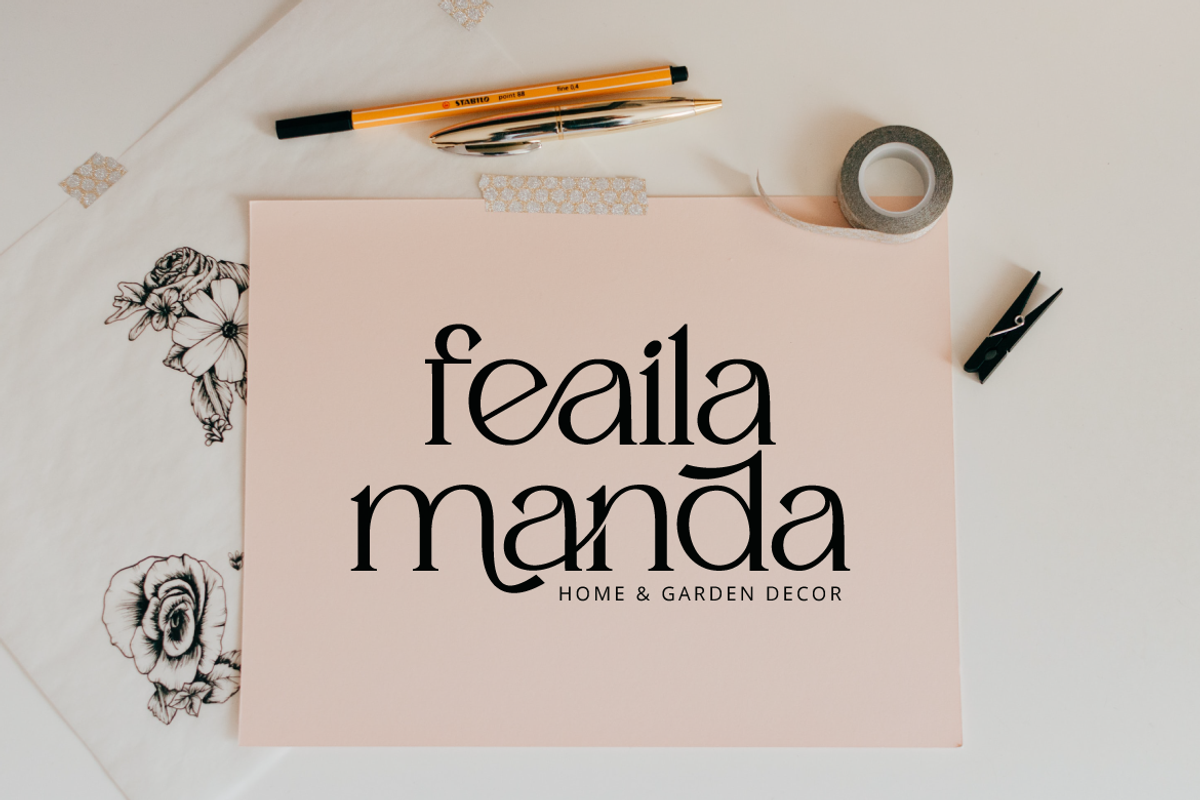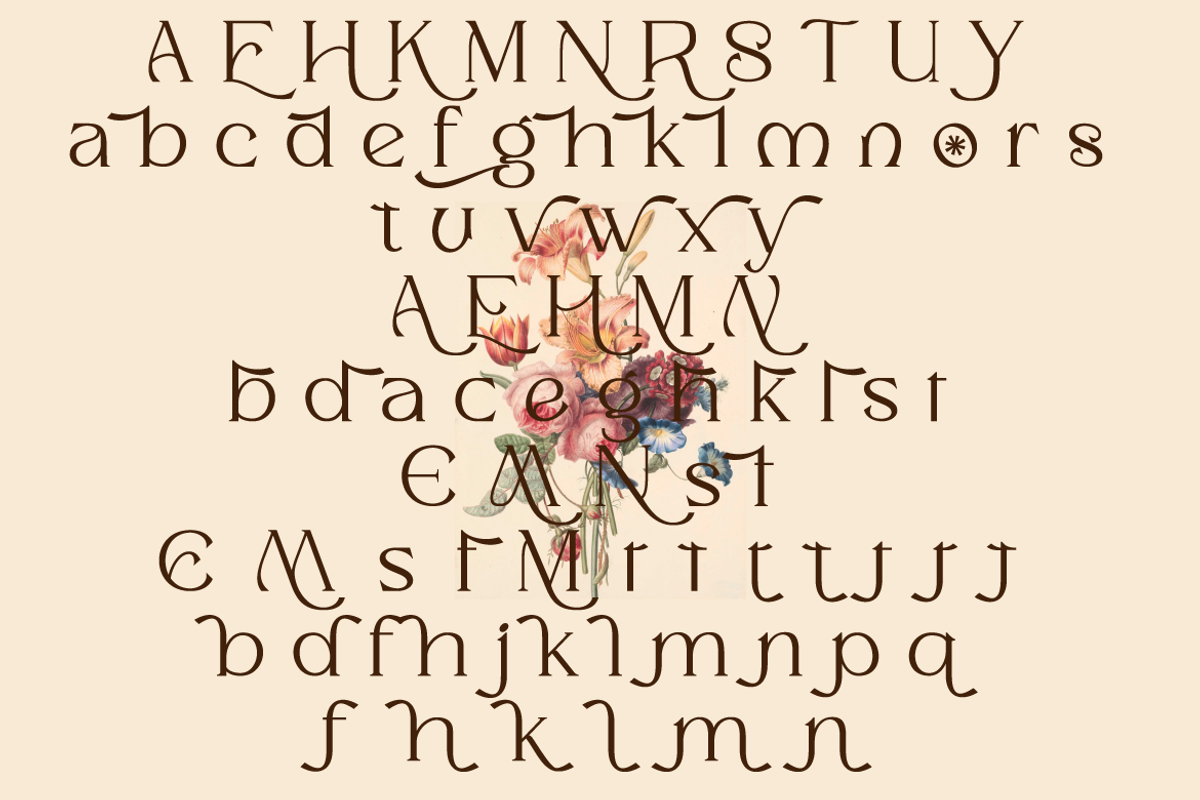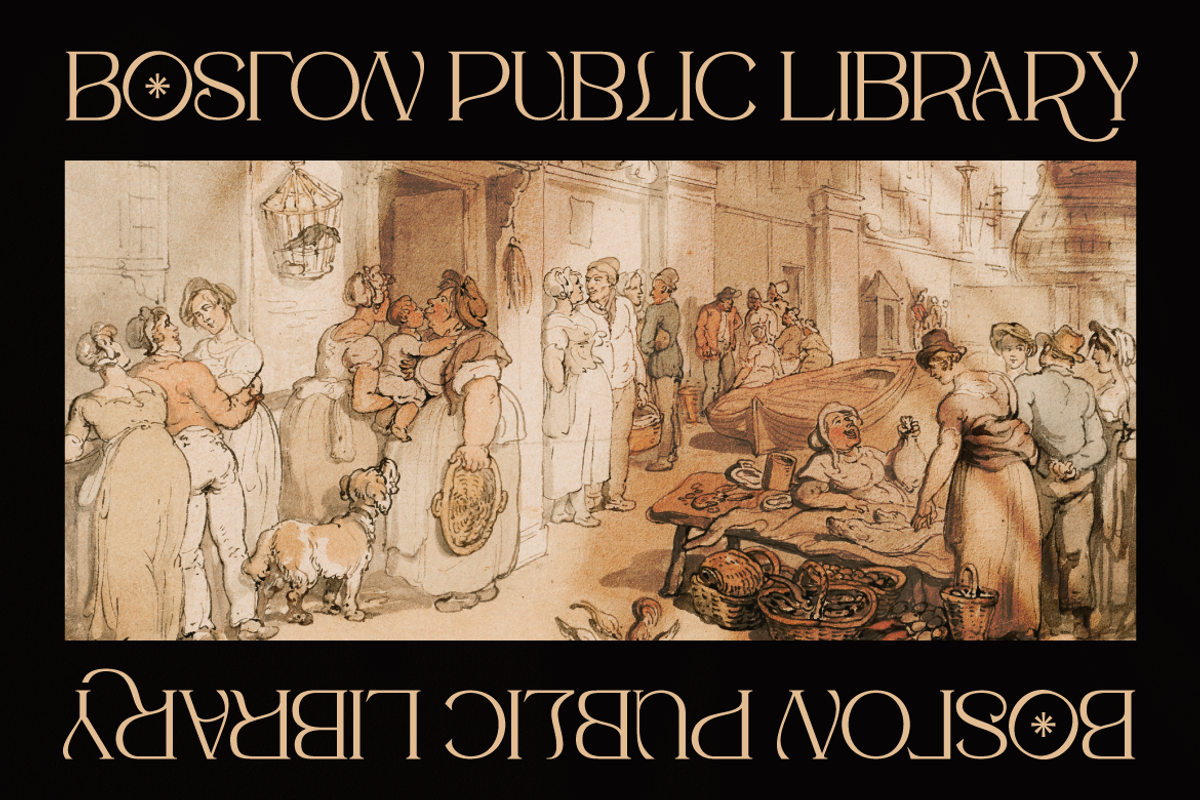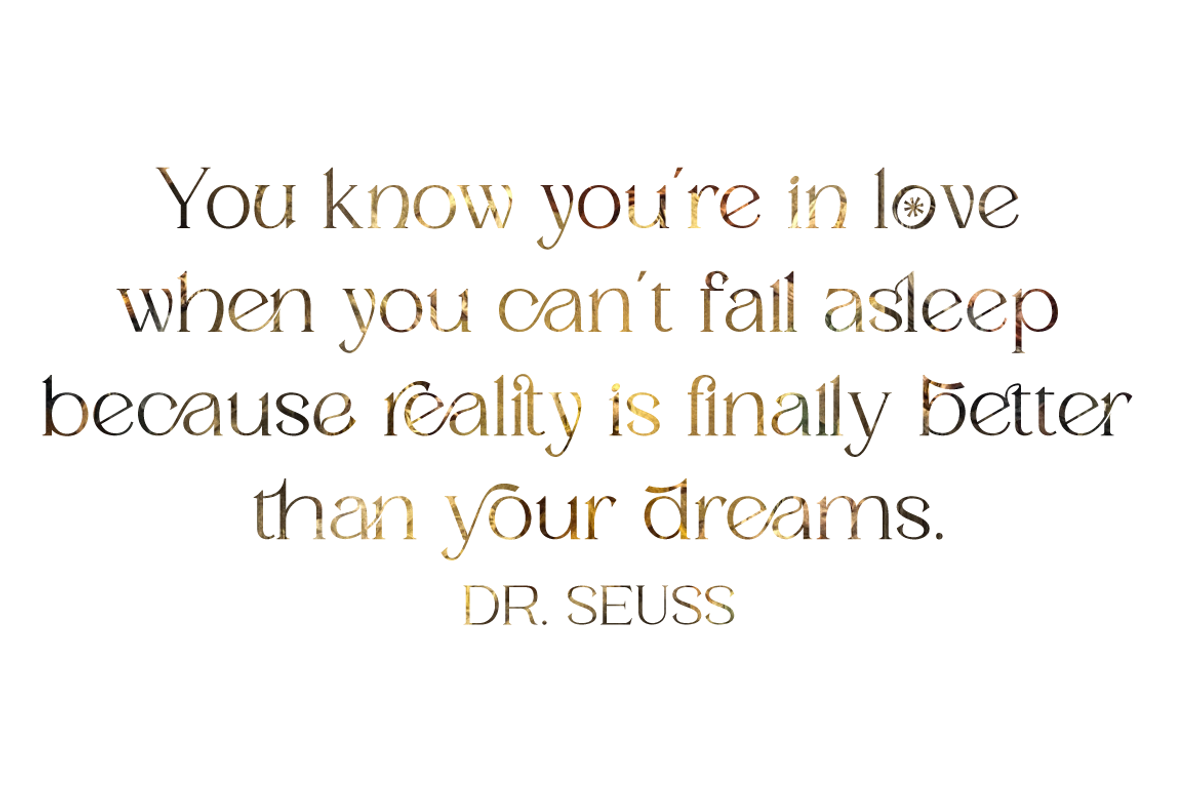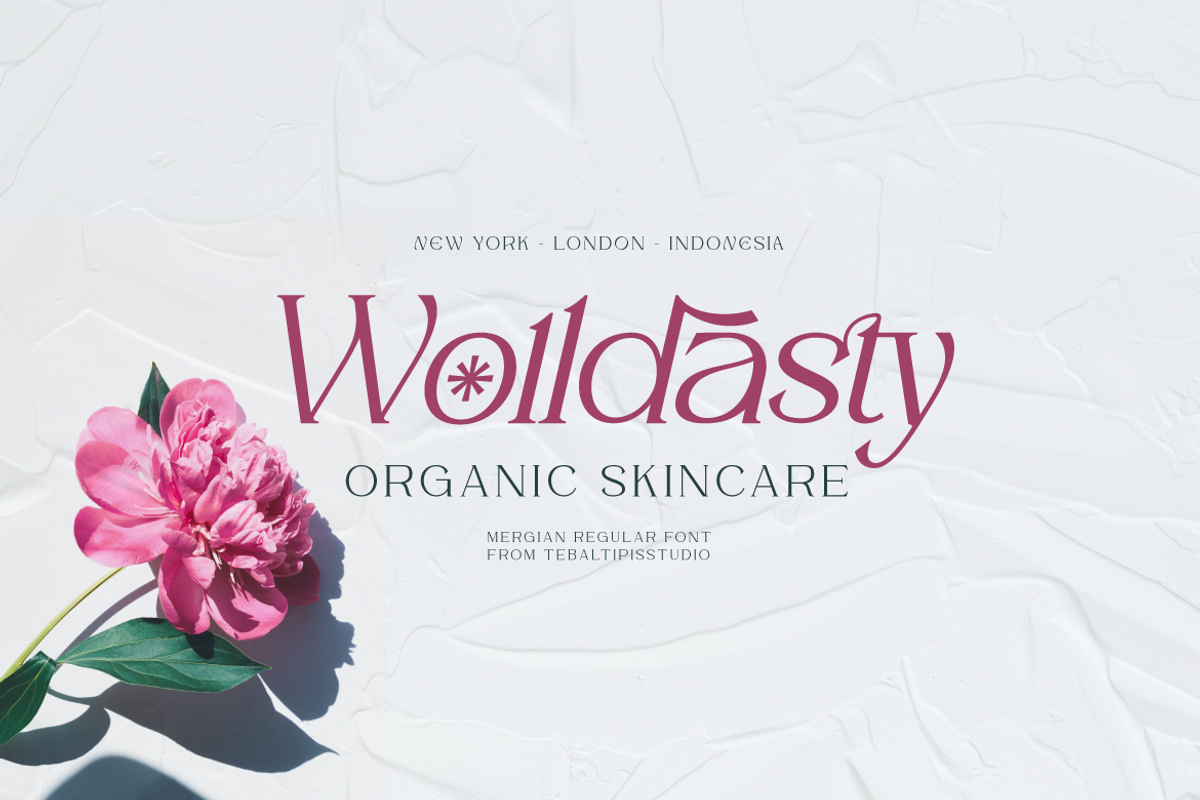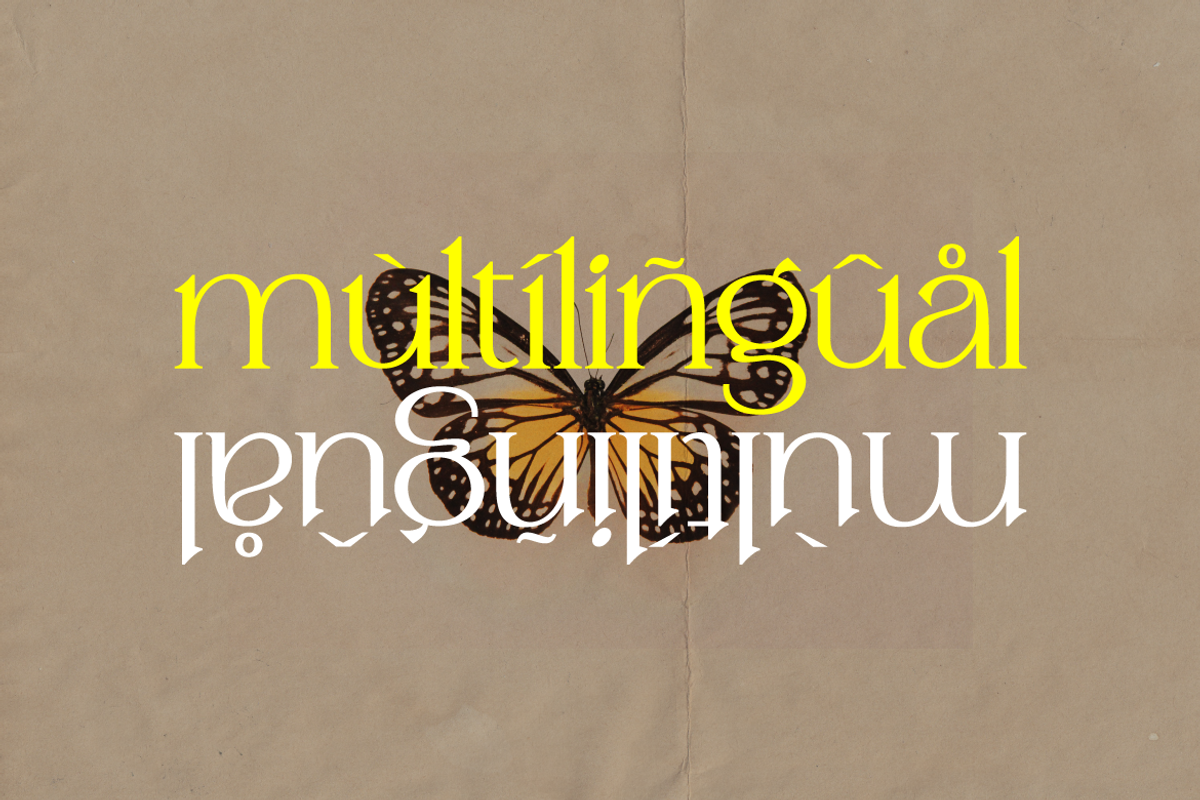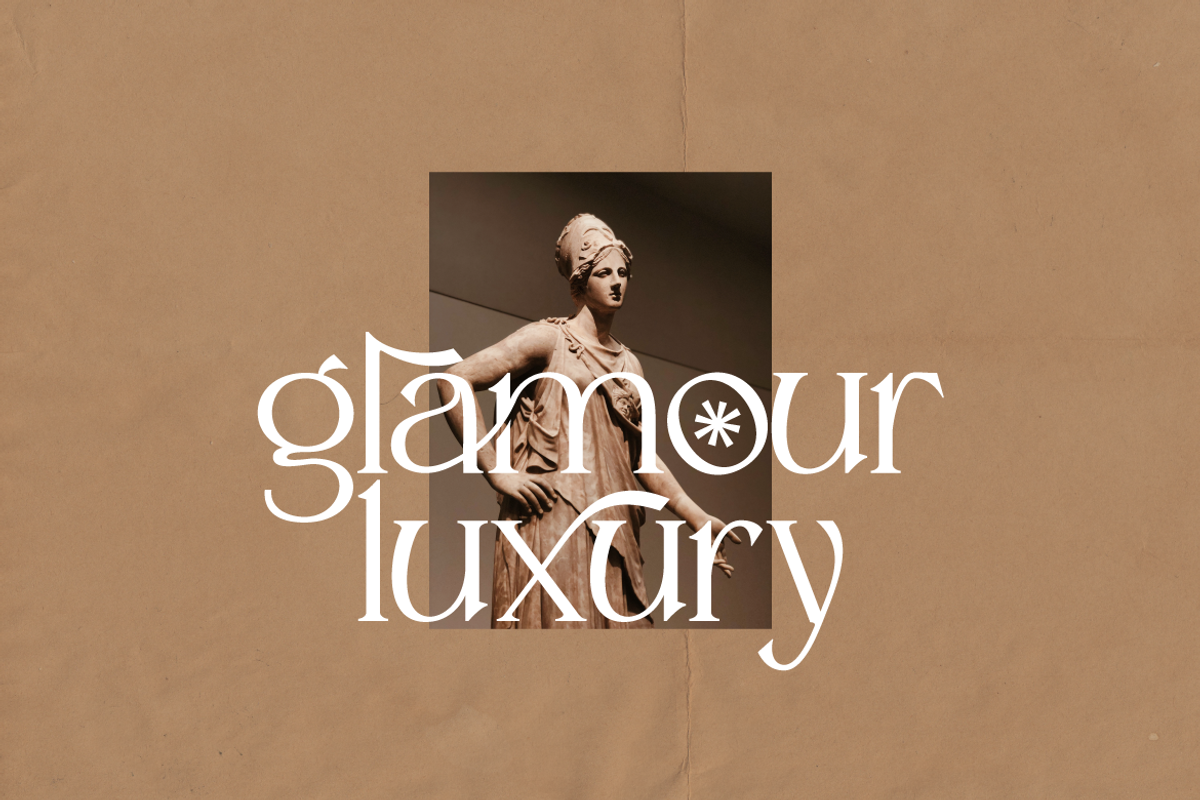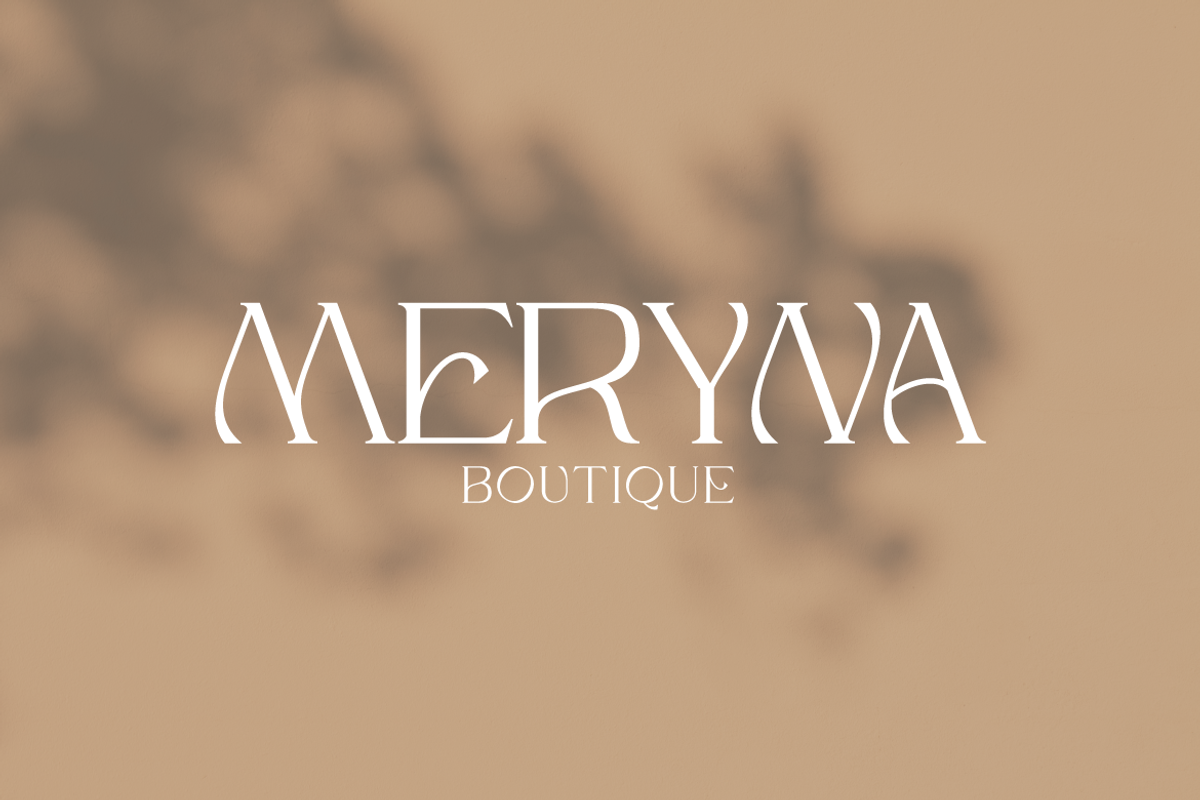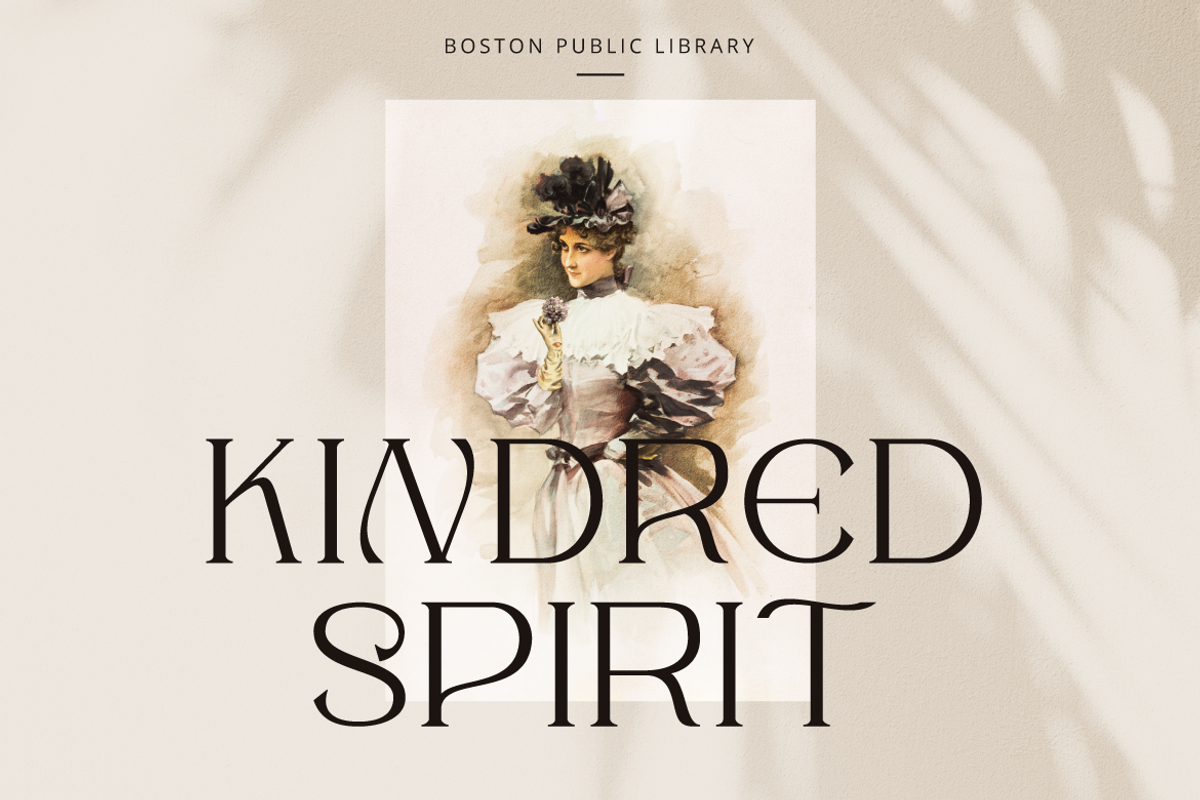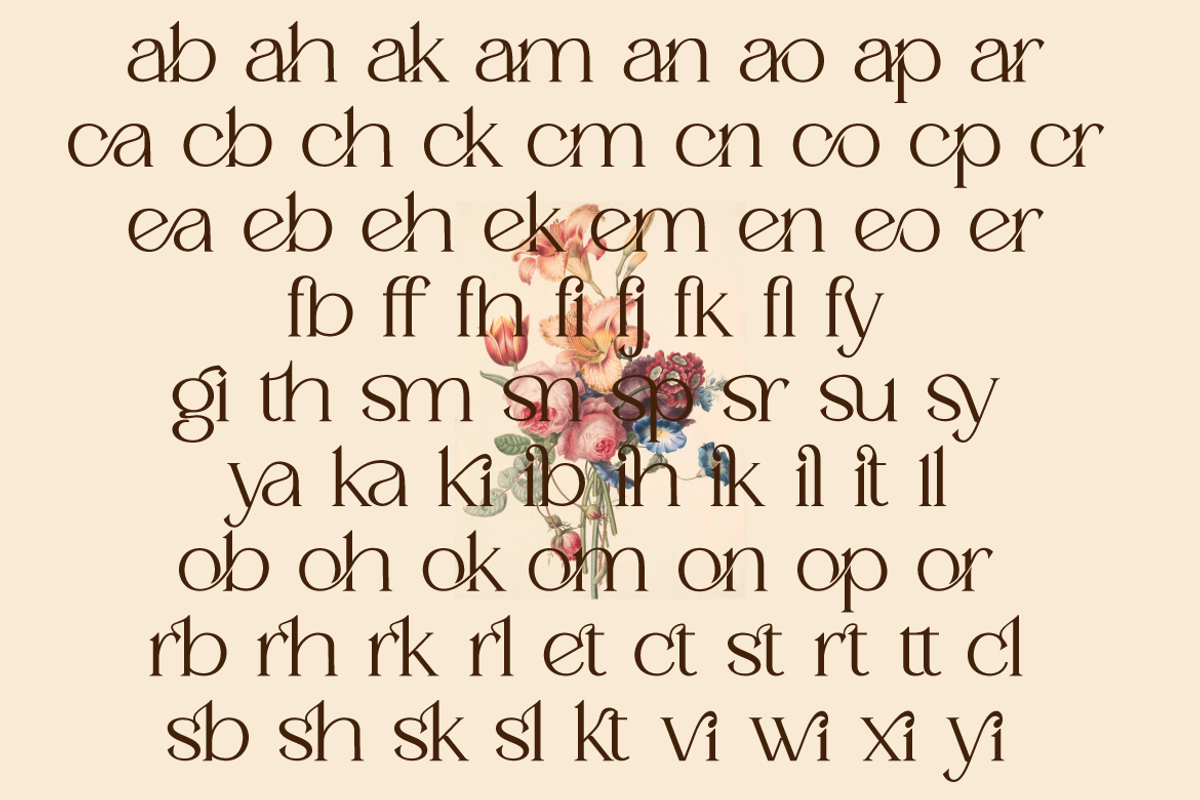
Mergian - Modern Serif
Mergian - Modern Ligature Font by Tebaltipisstudio introducing our new "Mergian" Modern Ligature with Elegant Style this is perfect for branding, logos, invitation, masterheads and more.
Mergian Features :
- Multilanguange